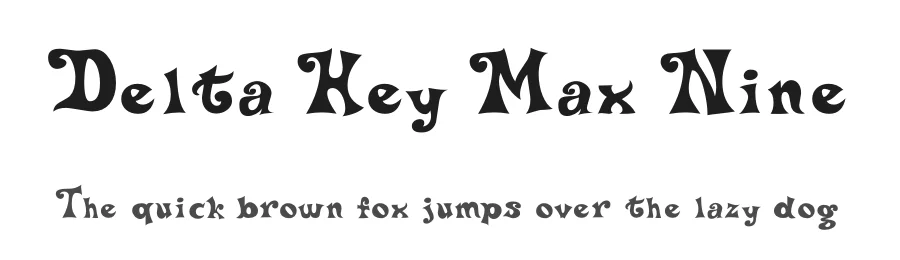
About Lestat Font
Lestat is a decorative font designed by Buzzbum. It includes 148 glyphs, a regular weight, TTF (TrueType) format, and 109 languages. Lestat is free to download; check the license details on this page before commercial use. Decorative fonts like Lestat work best for logos, posters, packaging, and standout headlines.
Lestat Font is a decorative font that shines as a display or heading face. Pair it with a clean sans-serif or serif font for body text β the contrast creates a clear hierarchy while the two styles stay balanced and easy to read.
Lestat Font
by Buzzbum
Lestat Font is a decorative typeface by Buzzbum, ideal for logos, invitations, branding, and creative projects.